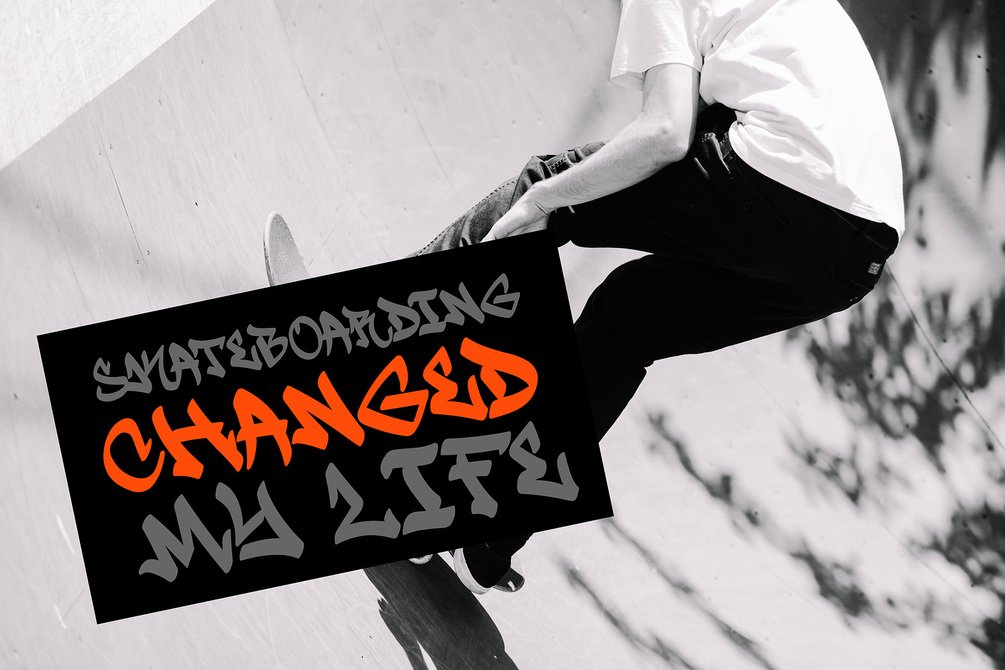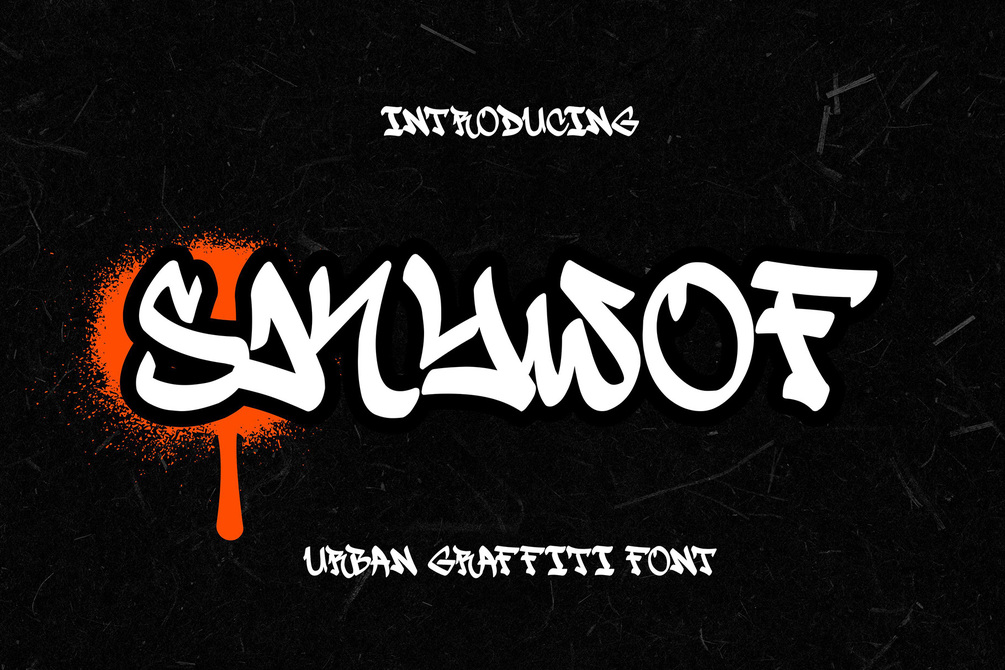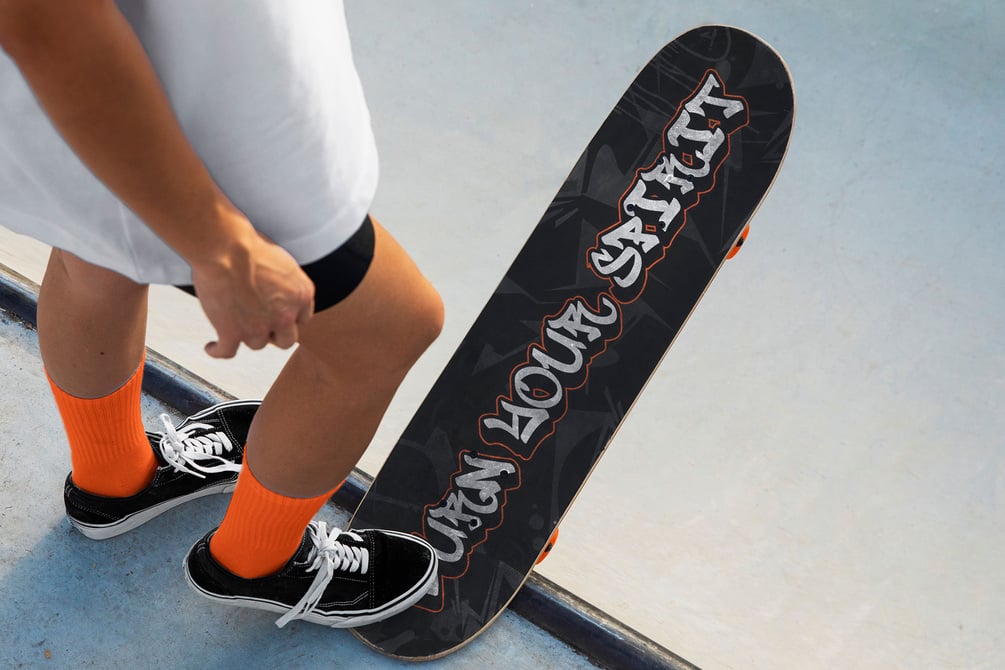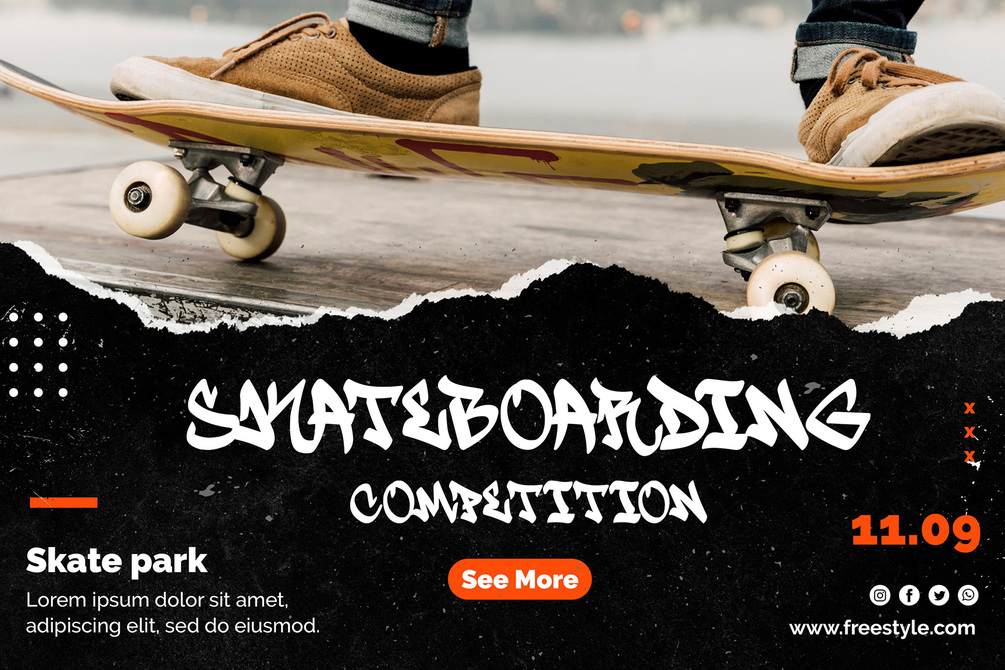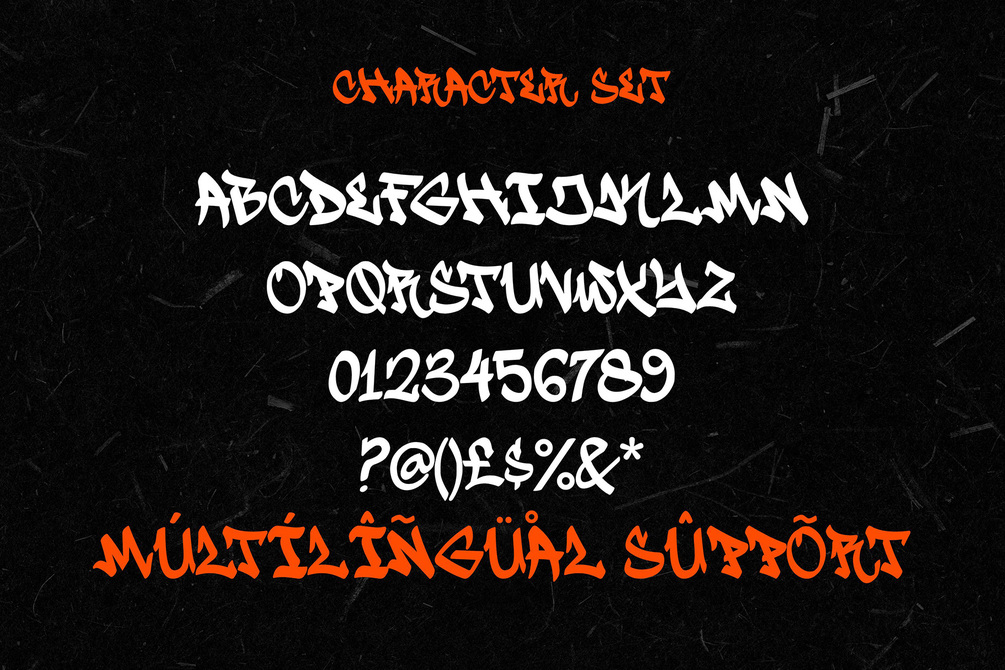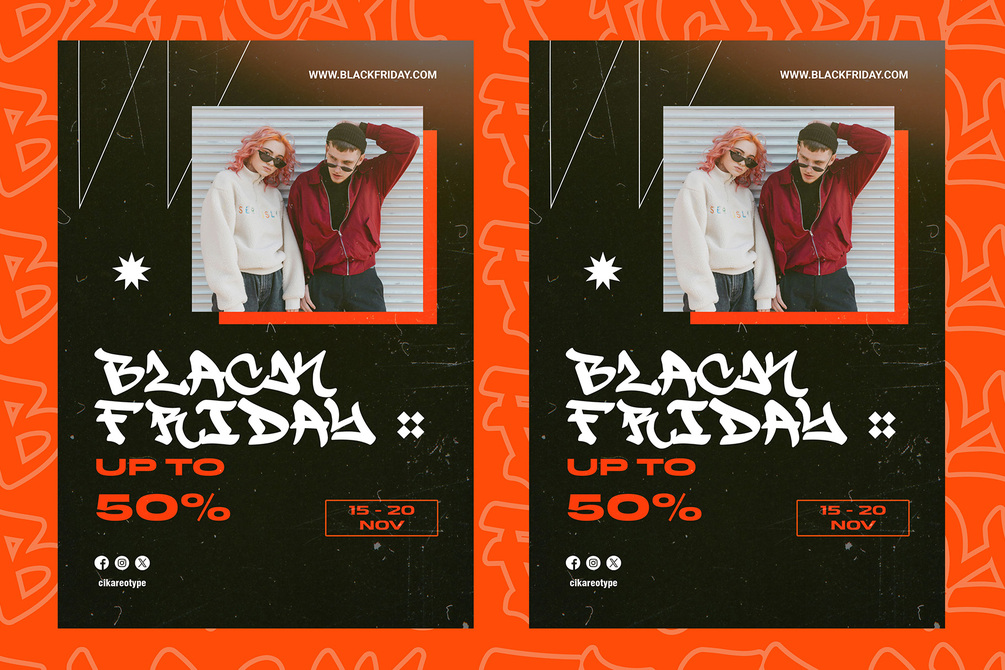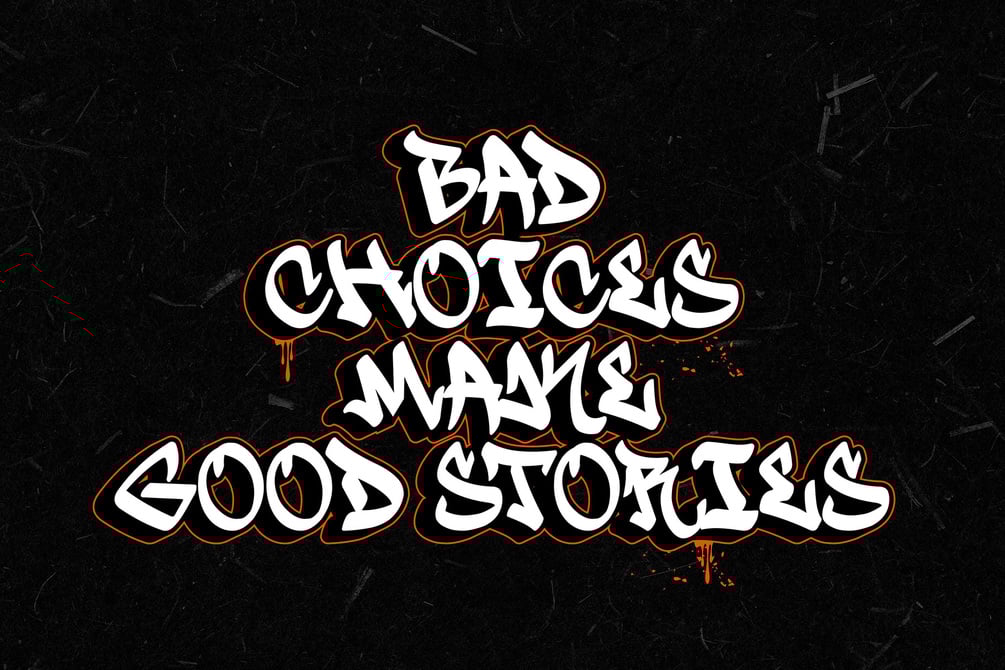
Skywof is a handwritten monoline graffiti font that embodies a blend of urban edge. The font's smooth, continuous lines create a clean and fluid aesthetic, while its graffiti-inspired style adds a sense of rebellious creativity. Ideal for projects that seek to capture the essence of street culture or convey a modern, artistic vibe, Skywof is versatile and can be used in a variety of design contexts, from branding and posters to social media graphics and apparel designs. Its natural, hand-drawn appearance gives it a unique personality, making it perfect for designs that require a human touch with an urban twist.
• Versatile for branding, headline, or printing product